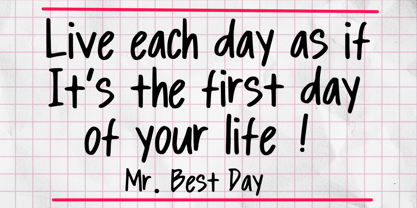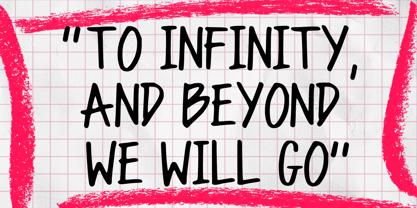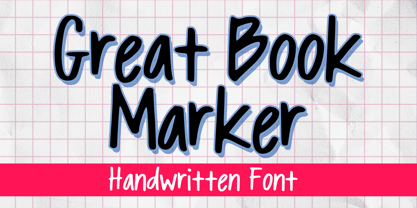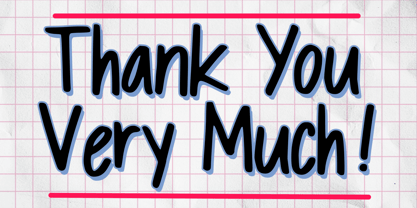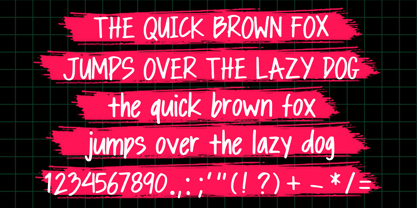
Great Book Marker
La famille de polices Great Book Marker a été conçue par Gabriel Valentinus et publiée par Mvmet. Great Book Marker contient 1 styles. En savoir plus sur cette famille
Great Book Marker is a fun and versatile daily use and suitable for everyday use thin marker font. It will elevate a wide range of design projects to the highest level. You can use this font for many design ideas such as stickers, t-shirt designs, amazing logo designs, magazine or book covers, comics, cartoon drawings, and many more. This font will add a super cool touch to your designs!